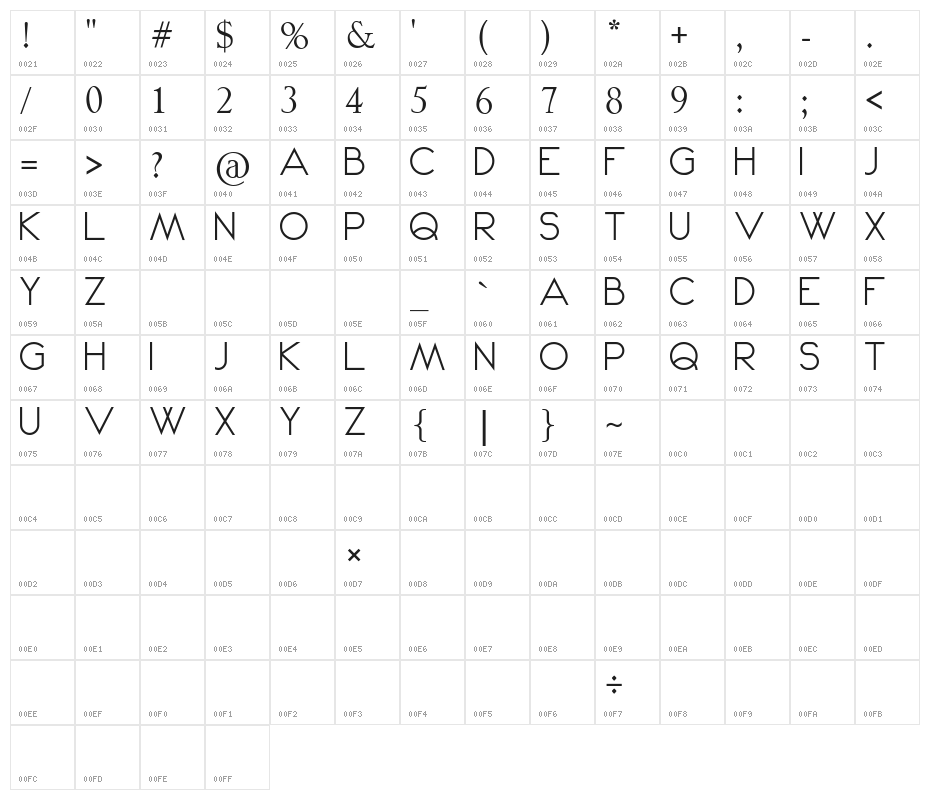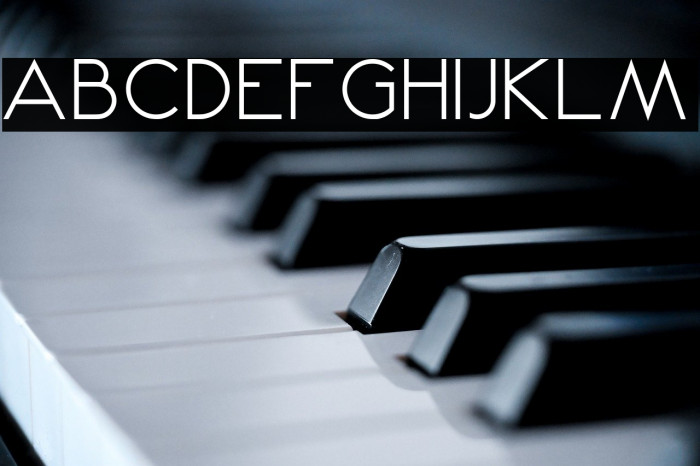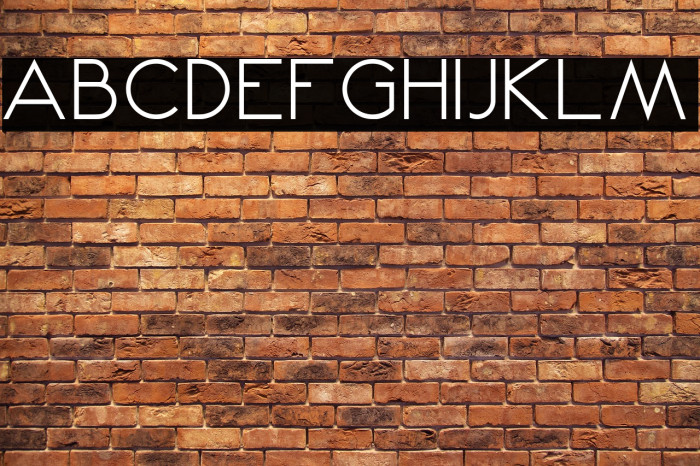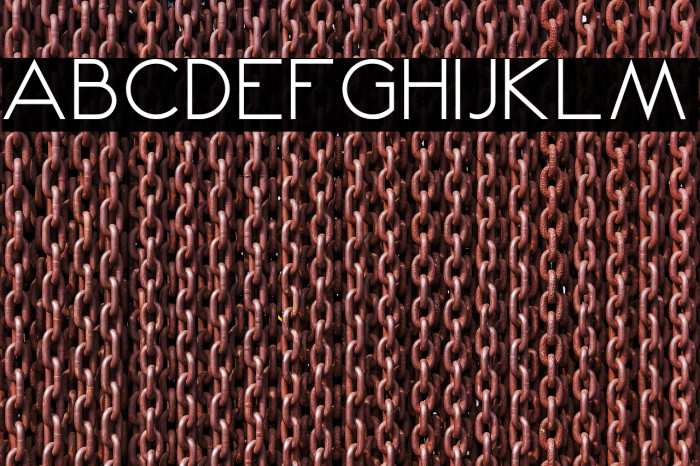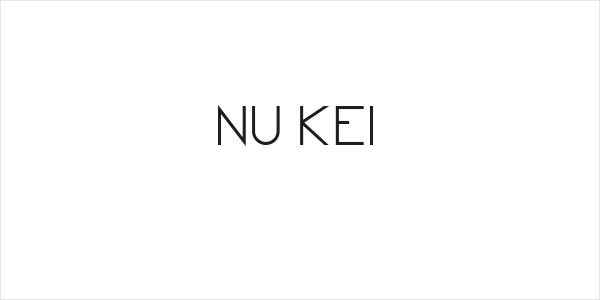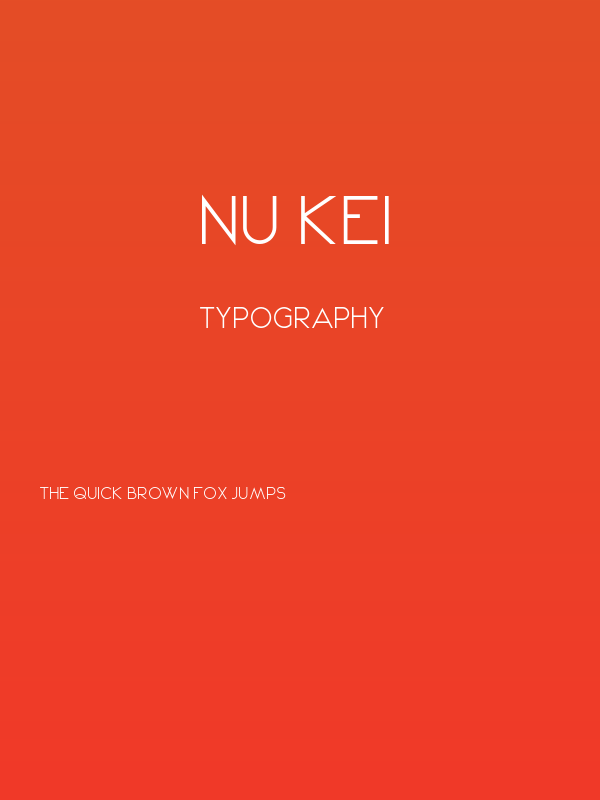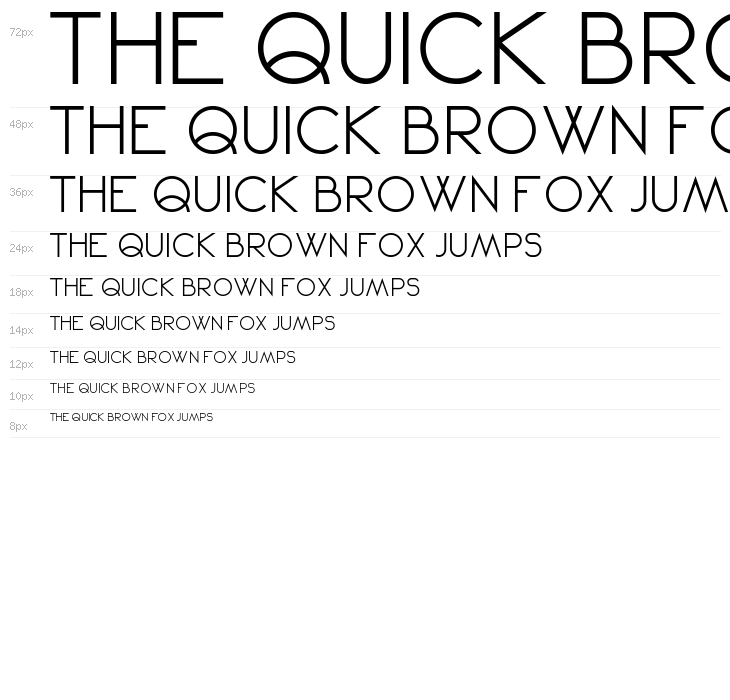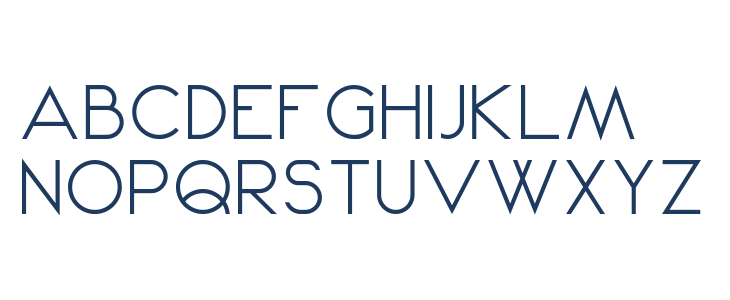
Nu Kei Font
Nu Kei Description
This font features a clean and modern aesthetic with a geometric structure. The uppercase letters are sharp and angular, providing a sense of precision and clarity. The lowercase letters maintain a consistent style, offering a harmonious balance between the two cases. The numerals are distinct and easy to read, with a slight curvature that adds a touch of elegance. Special characters are well-defined, ensuring versatility in various applications. The overall design is sleek and contemporary, making it suitable for a wide range of design projects.